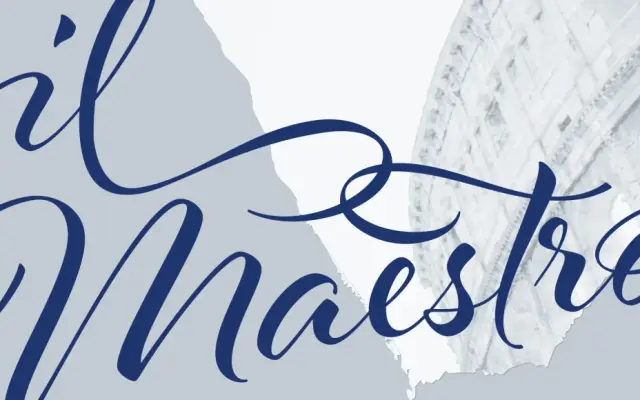
Al Fresco
A casual looped script in two weights, built with extensive OpenType features including 157 swash forms, 46 decorative ligatures and titling alternates that strip the loops for a cleaner look.
Designed for packaging and titling, Al Fresco offers a breezy handwritten character with loops on lowercase letters that can be removed via titling capitals for a more contemporary aesthetic. Contextual alternates reduce ending strokes to give a more naturalistic, handcrafted feel. The OpenType set includes two extra uppercase alphabets, 16 ornaments and special coding to access all alternates without professional software.
A casual, flowing script with looped lowercase letterforms, swash alternates and stylistic sets characteristic of hand-lettered casual scripts used in packaging and titling.